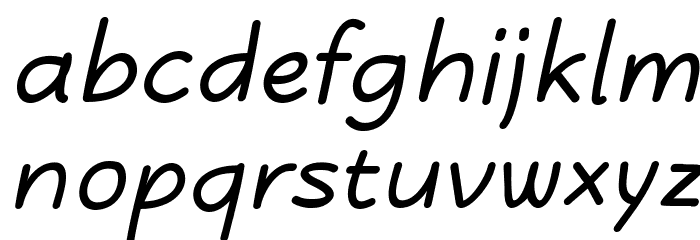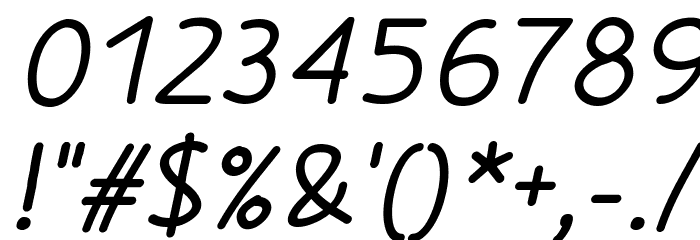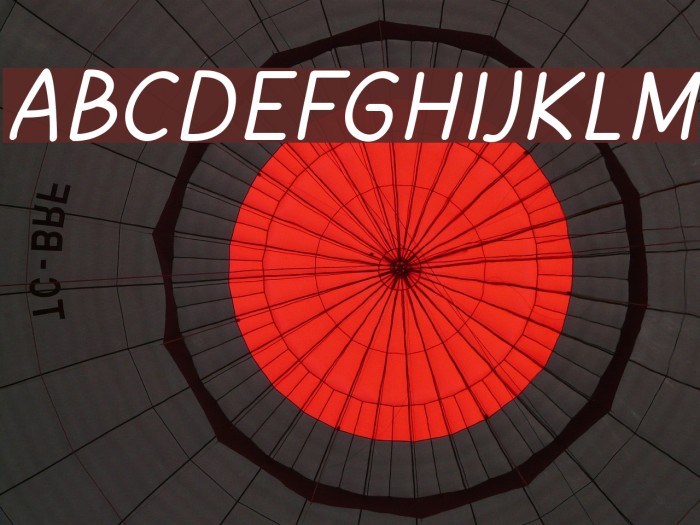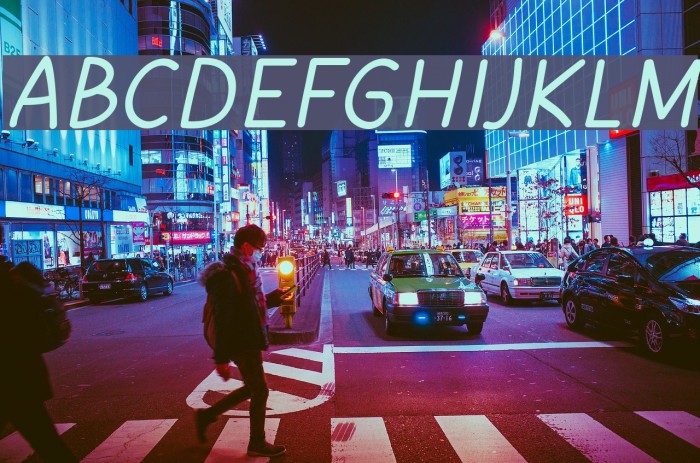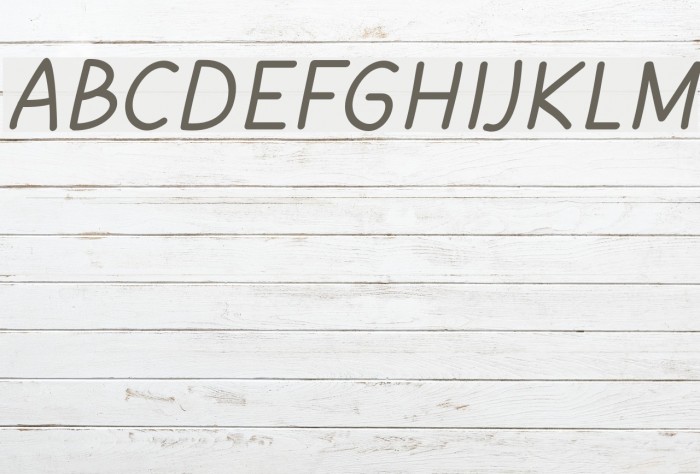
Kasih Bold Italic Font
This font features a bold and italic style that exudes a sense of casual elegance. The characters are slightly slanted, giving a dynamic and fluid appearance, while maintaining a consistent thickness throughout. The uppercase letters are tall and commanding, while the lowercase letters have a friendly and approachable feel. The numerals are clear and easy to read, making them suitable for various applications. Special characters are well-integrated, ensuring versatility in design projects. Overall, this font combines modern aesthetics with a touch of playfulness, making it ideal for creative and informal settings.
A bold, italic font with a casual and dynamic style.
- Proposed Projects: Ideal for branding, social media graphics, casual invitations, and playful editorial designs.
- Use Case: Logos, Headlines, Informal Text